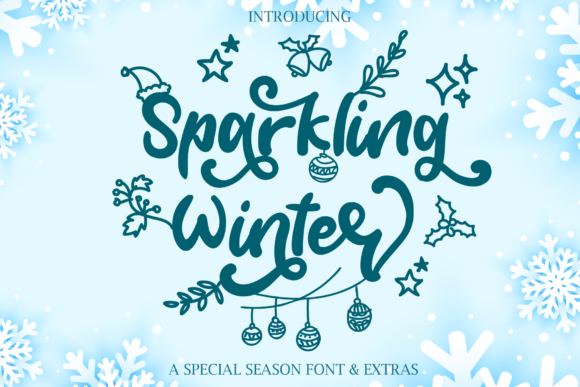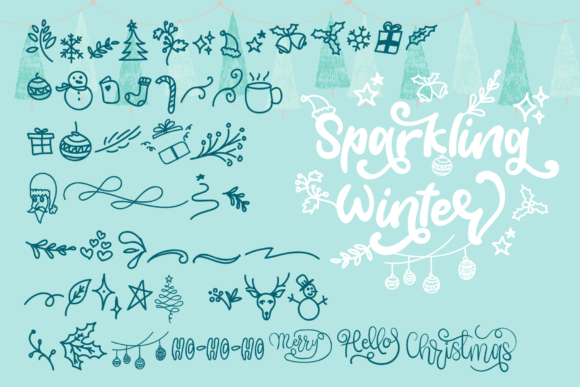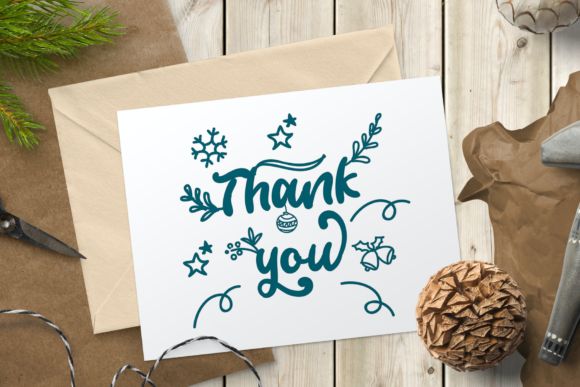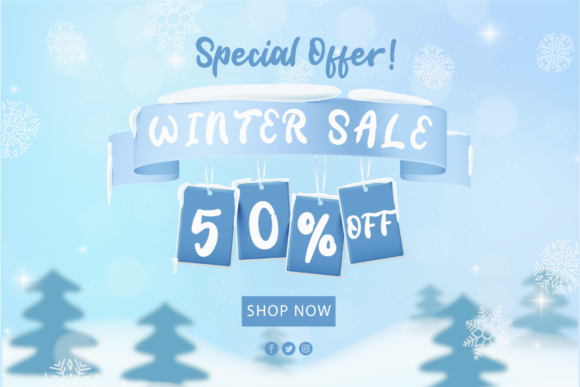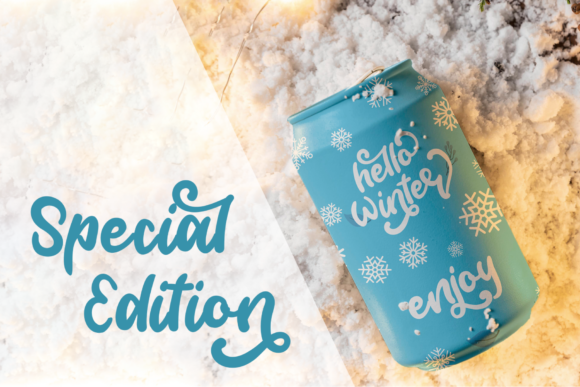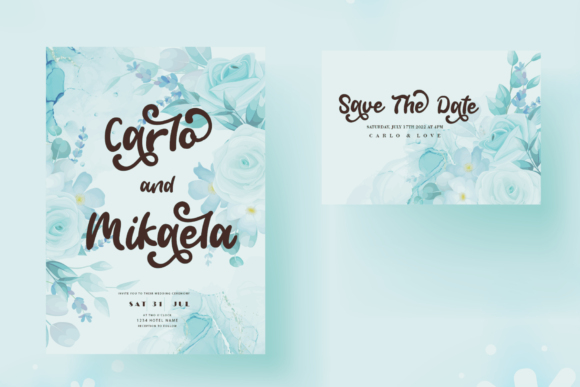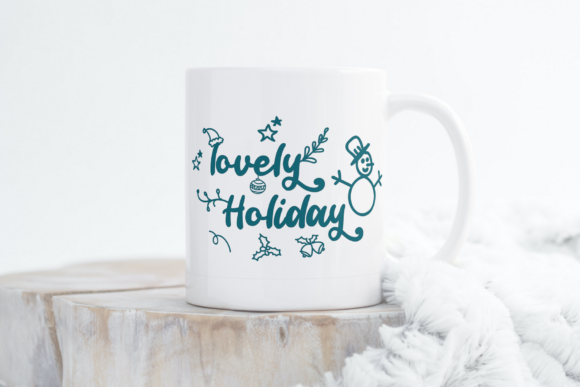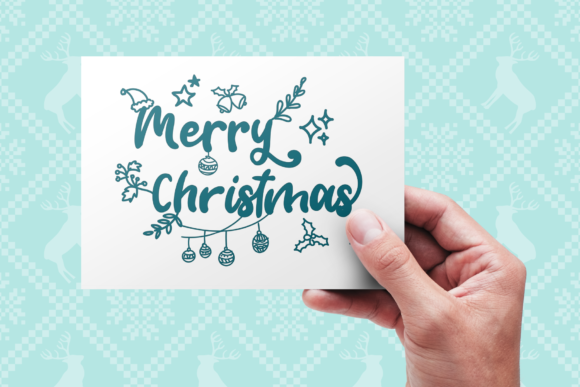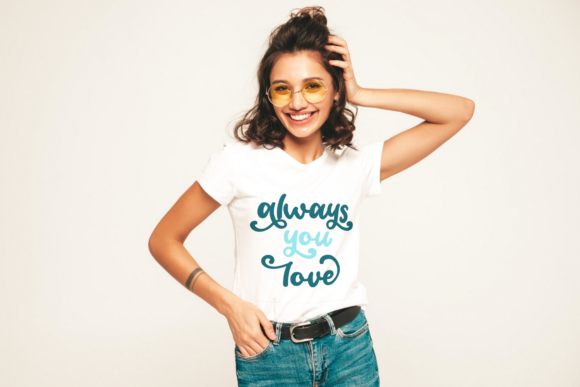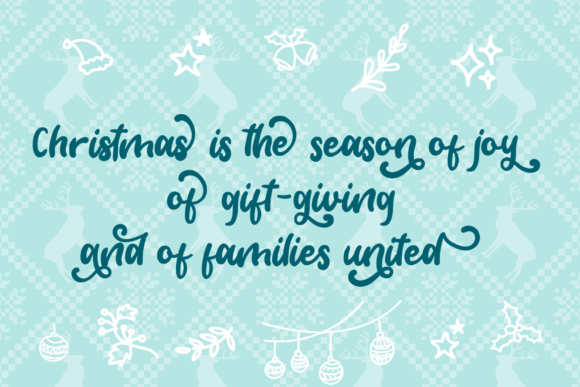
Sparkling Winter Font
About Sparkling Winter Font
Sparkling Winter is a beautiful and light handwritten font with a unique feel and a stunning impact. It will add a luxury spark to any design project that you wish to create! Sparkling Winter is PUA encoded which means you can access all of the glyphs and swashes with ease!